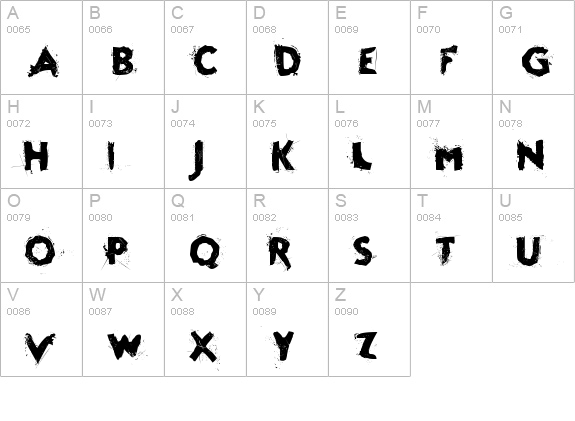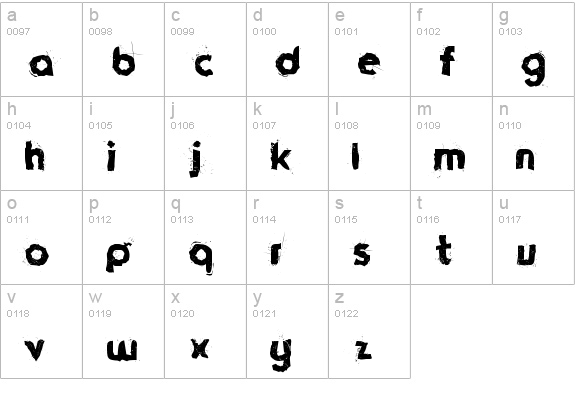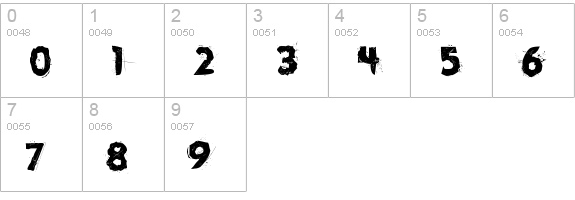
Funkrocker Font Details
Funkrocker font is a funky and vibrant typeface that exudes energy and creativity. With its bold and playful letterforms, this font is perfect for making a statement and adding a touch of fun to any design project. Featuring a unique combination of sharp angles and smooth curves, Funkrocker font captures the essence of the funk and rock music genres. Its dynamic and expressive characters make it an excellent choice for music-related designs, album covers, posters, and more. But what truly sets Funkrocker font apart is that it is available for free! Yes, you heard it right. This amazing font can be freely downloaded at FontsMarket.com, allowing you to bring its distinctive style to your projects without any cost. Whether you're a graphic designer, a musician, or simply someone who appreciates bold and lively typography, Funkrocker font is a must-have in your collection. Its versatility and eye-catching design make it suitable for a wide range of applications, from branding and advertising to social media graphics and website designs. So go ahead and unleash your creative side with Funkrocker font. Download it for free at FontsMarket.com and let your designs rock the world with its infectious energy and charm.